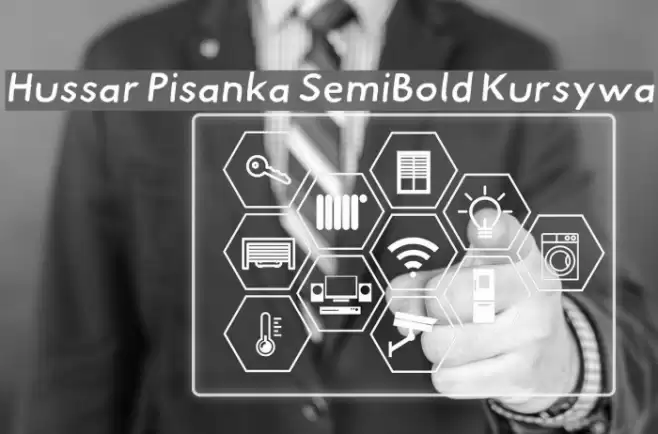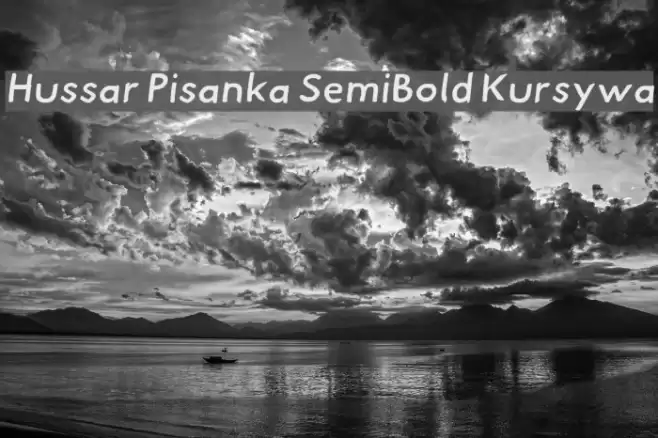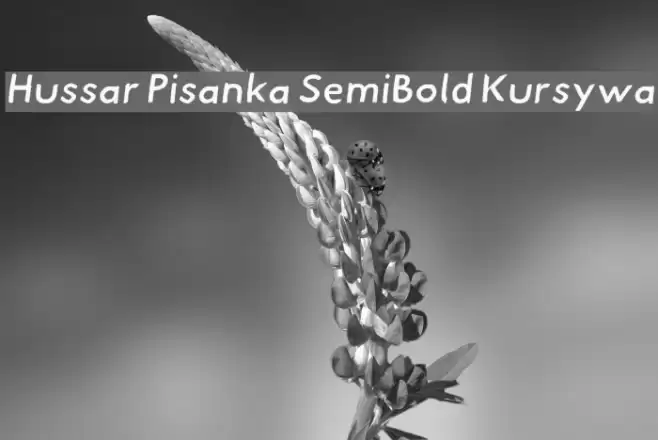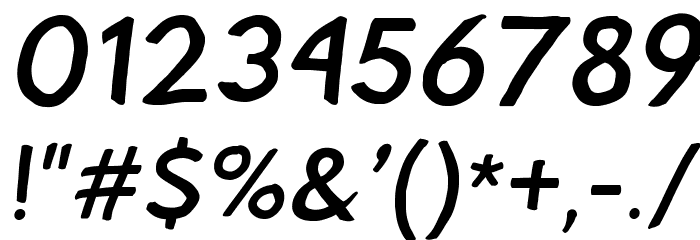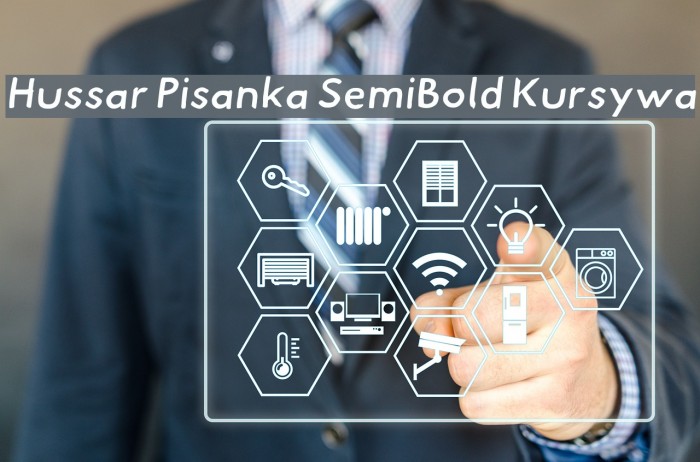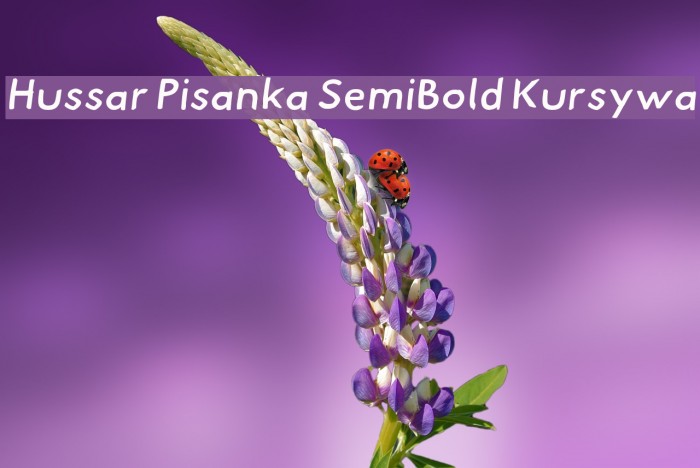
Hussar Pisanka SemiBold Kursywa
This font features a playful and dynamic style with a semi-bold weight, characterized by its cursive and slightly slanted letterforms. The strokes are smooth and fluid, giving it a handwritten appearance that is both approachable and stylish. The uppercase letters are bold and confident, while the lowercase letters maintain a consistent flow, enhancing readability. The numerals are clear and distinct, matching the overall aesthetic of the alphabet. Special characters are well-integrated, maintaining the font's cohesive look. This font's unique blend of cursive elements and semi-bold weight makes it versatile for various design applications.
A playful, semi-bold cursive font with smooth, fluid strokes.
- Proposed Projects: Ideal for greeting cards, invitations, branding projects, and playful editorial designs.
- Category: Script
- Use Case: Headlines, Logos, Invitations